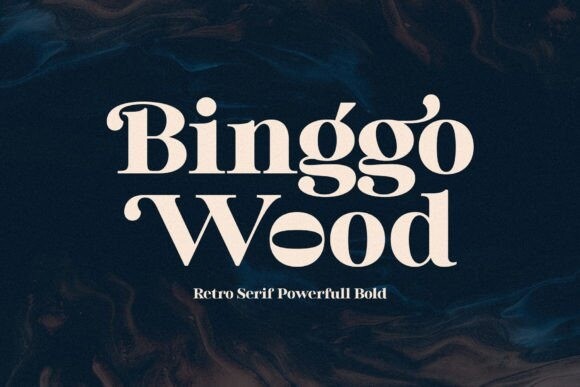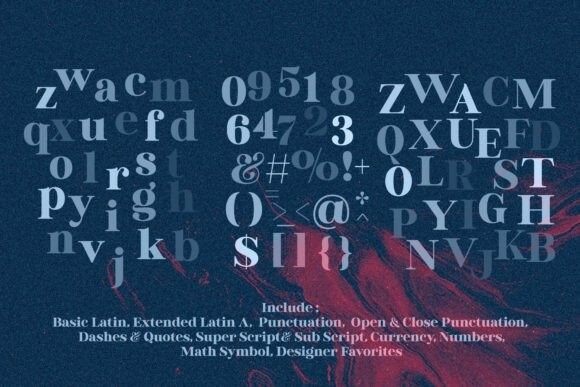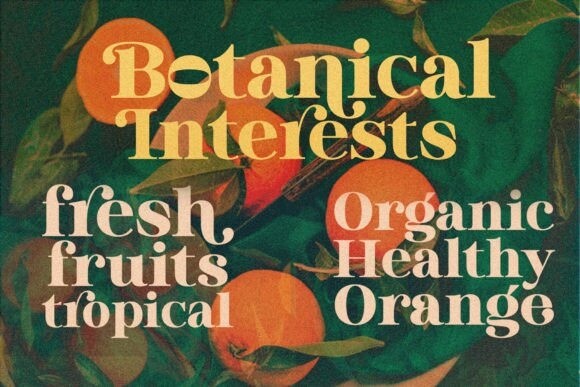
Binggo Wood Font
Bingo Wood Font in totality and elegance. One of my newest first releases, hand-drawn with pinpoint accuracy. Bingo Wood has the perfect amount of simplicity and subtlety for your next project. It perfectly represents retro and vintage aesthetics. Use this font for logos, invitations, and your next home decor project that requires a touch of compact alternative combinations!